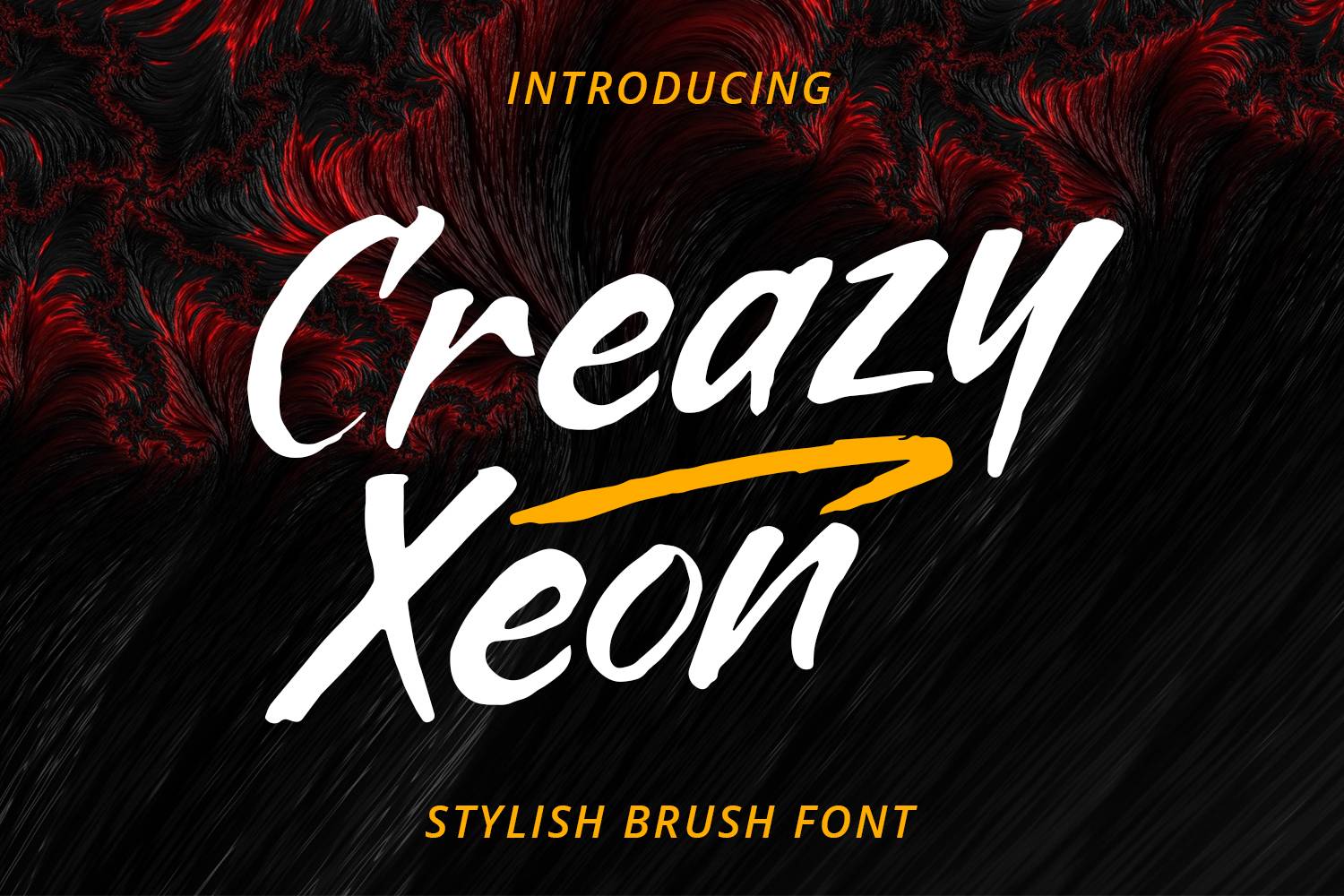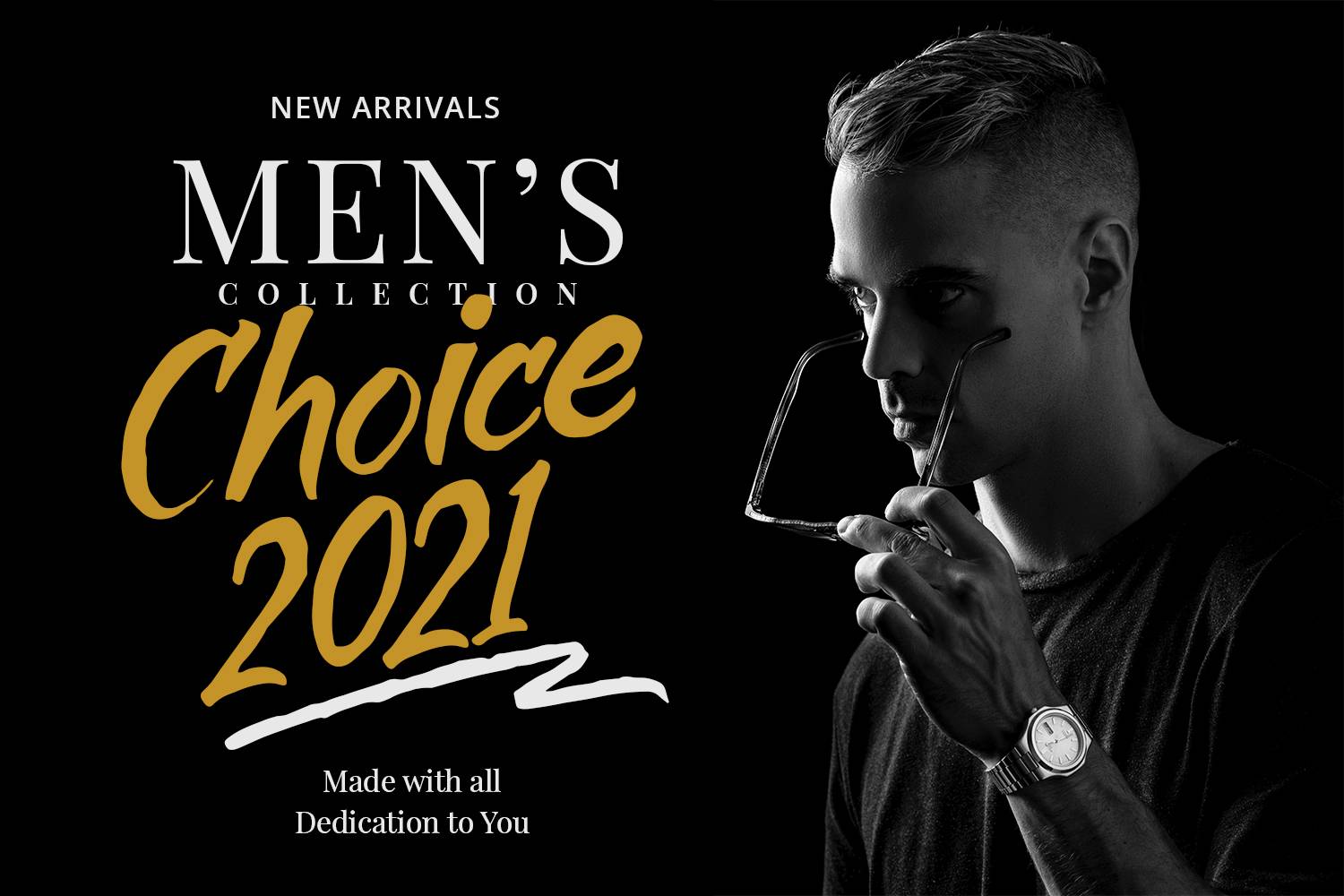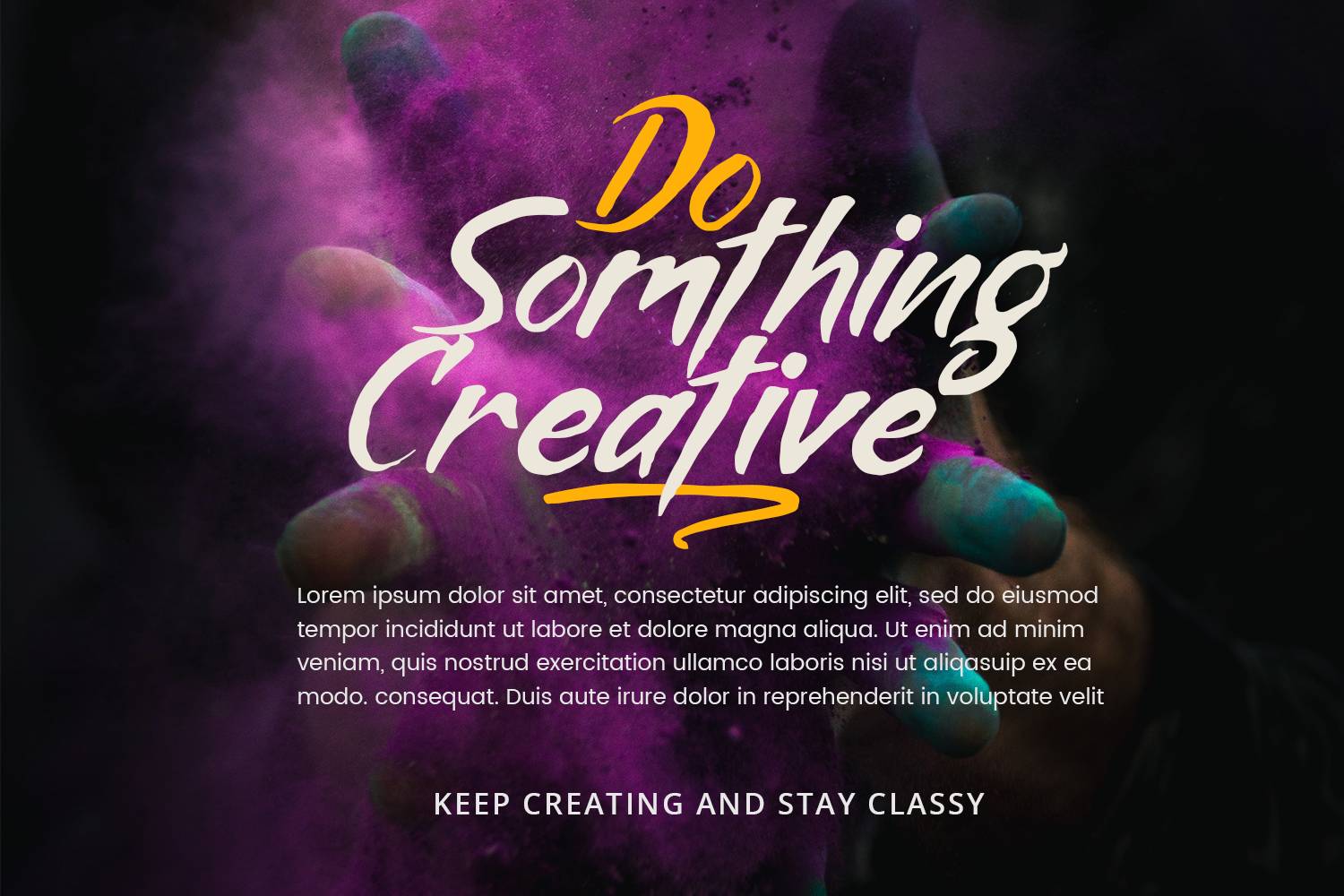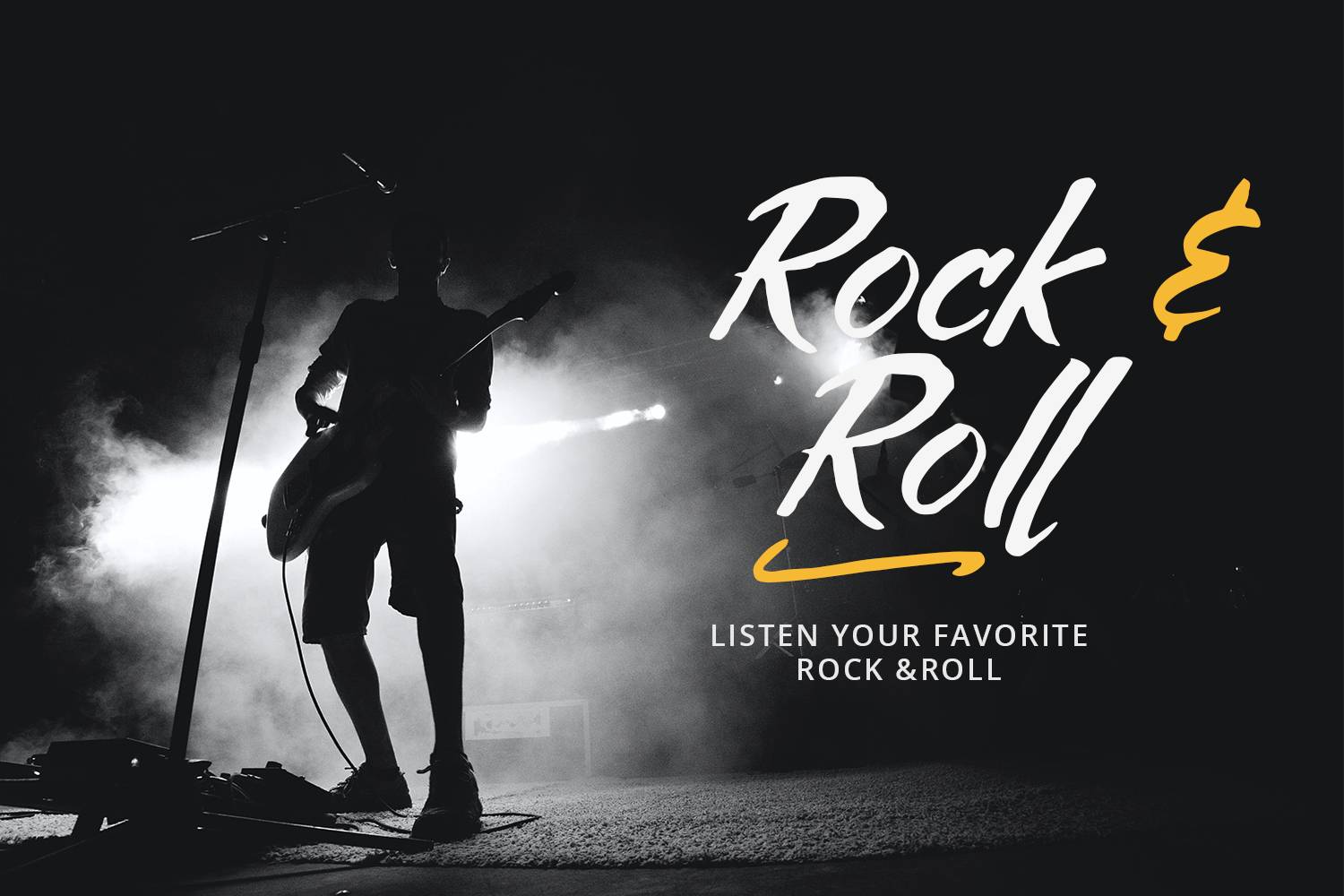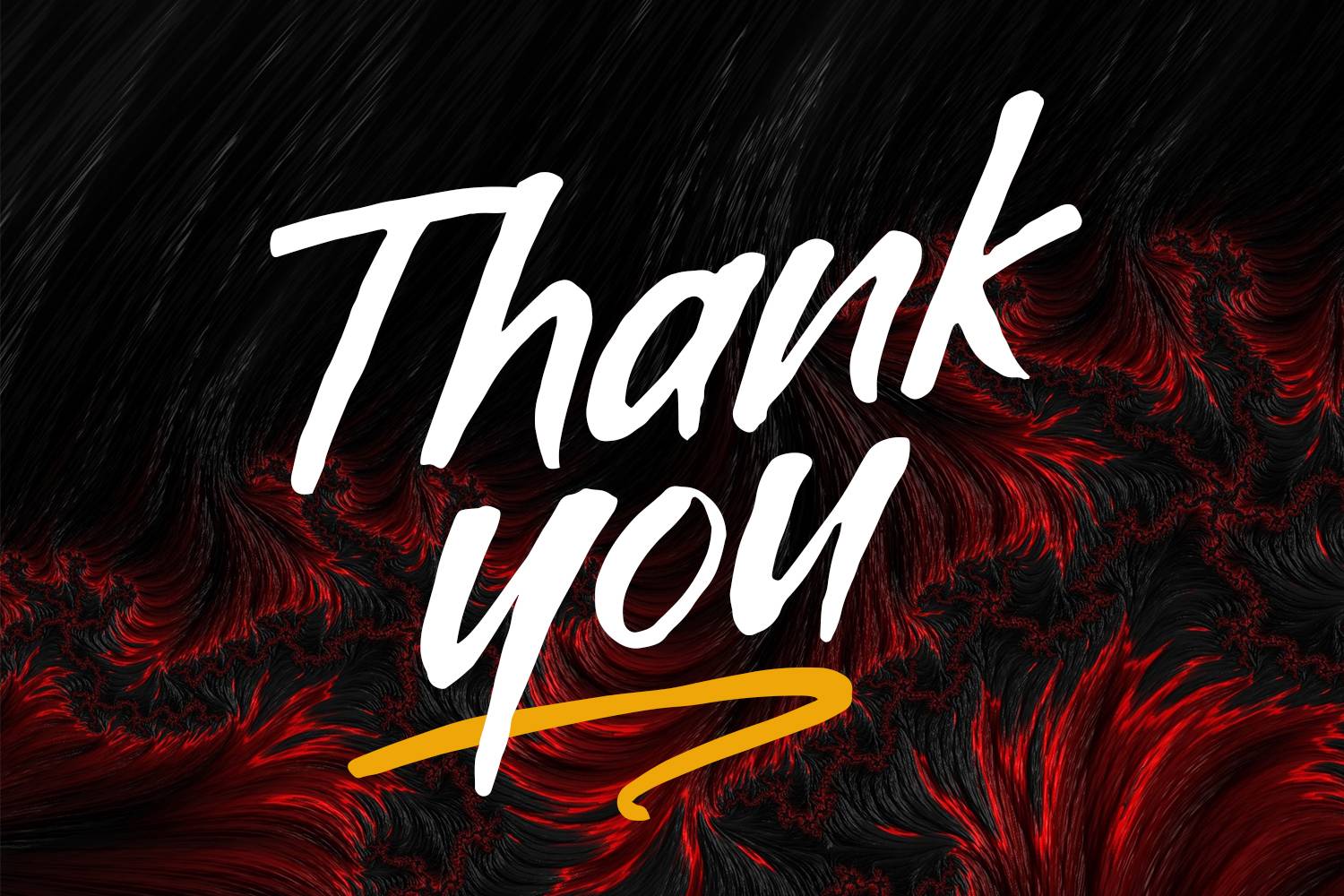
Creazy Xeon is a lively and expressive script font with a casual, hand-painted feel that combines slightly irregular strokes with bold, dynamic movement. Its moderate contrast and fluid letterforms create an energetic and informal style, perfect for adding personality and a creative touch to branding, posters, and headlines. This font works well in designs that want to convey friendliness, spontaneity, and a relaxed yet artistic vibe.
Creazy Xeon Font
About Creazy Xeon Font